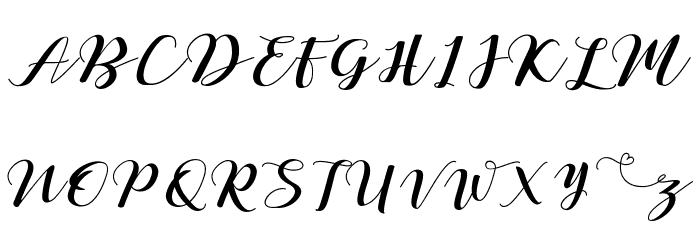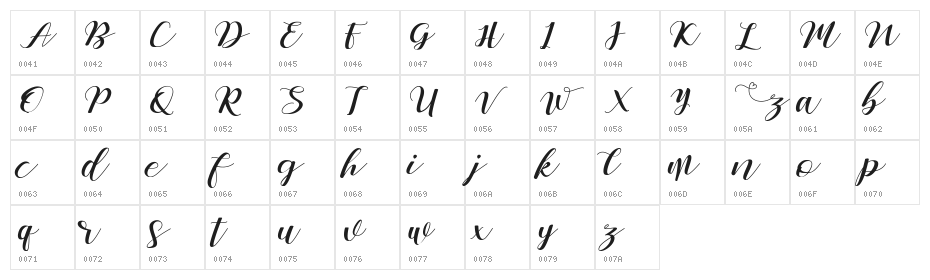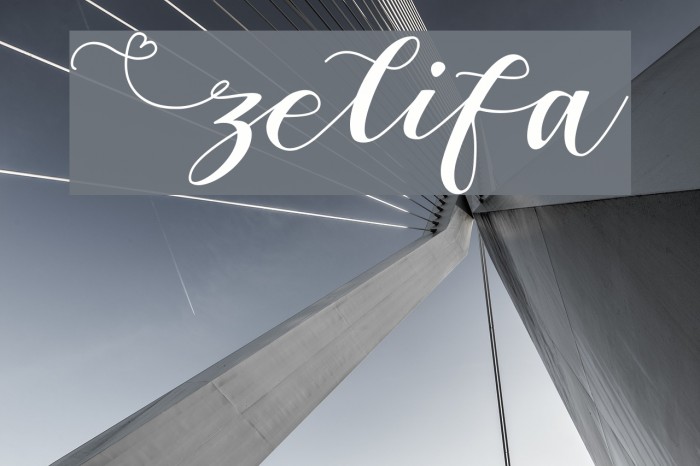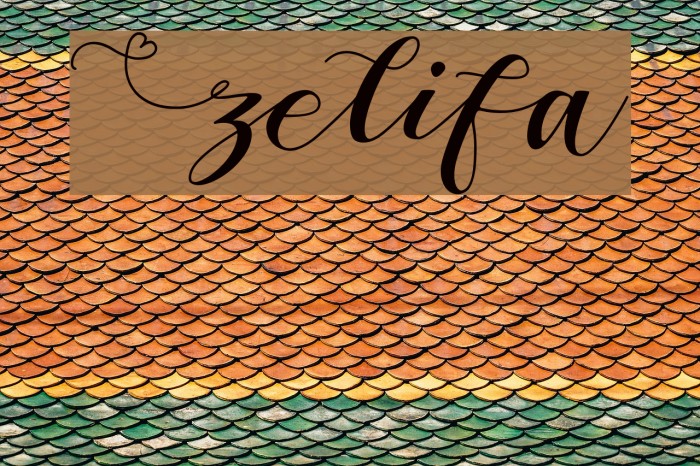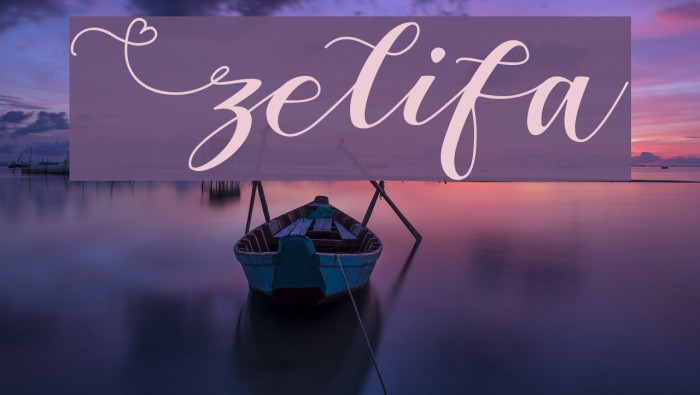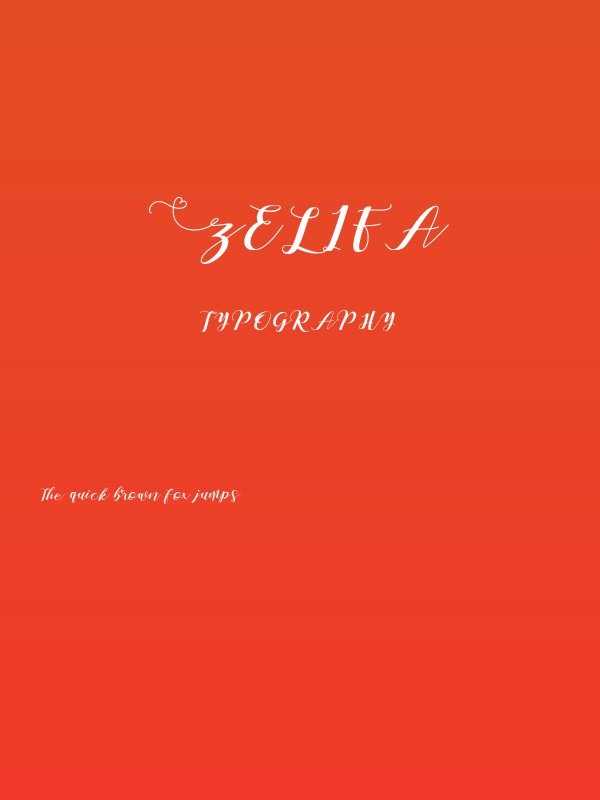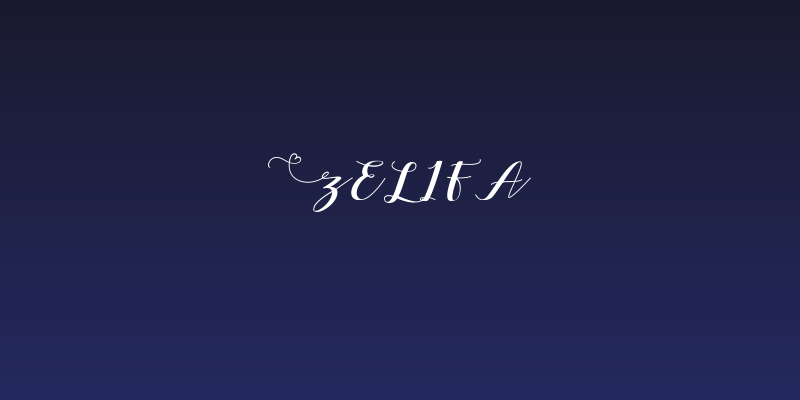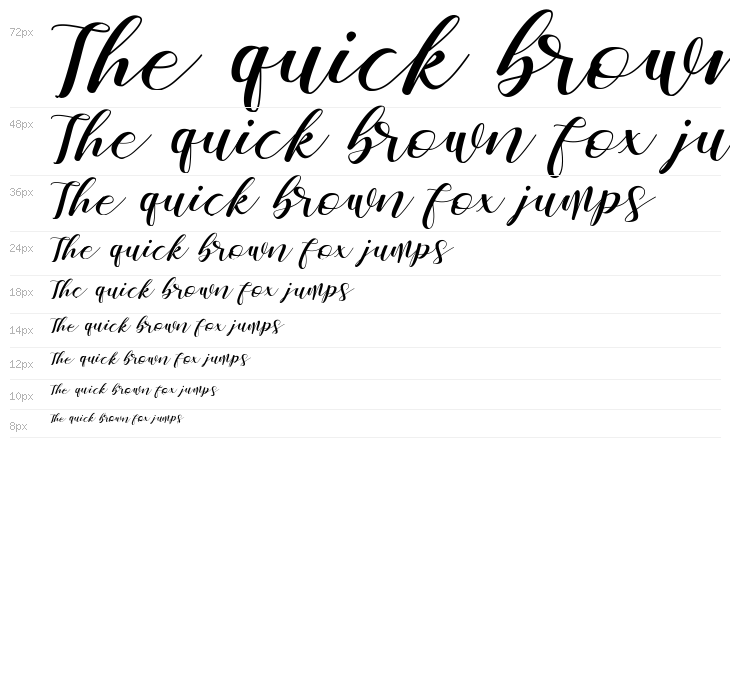
Zelifa Font
Zelifa Description
This font features an elegant and flowing script style, characterized by its smooth, cursive letterforms. The uppercase letters are particularly ornate, with sweeping curves and flourishes that add a touch of sophistication. The lowercase letters maintain a consistent flow, making them highly legible despite their decorative nature. The font's overall appearance is both graceful and dynamic, making it suitable for a variety of creative applications. The characters are well-spaced, ensuring readability while maintaining an artistic flair. This font is perfect for projects that require a touch of elegance and style.
Overall StyleElegant, Decorative
Use CaseHeadlines, Invitations, Branding
Proposed ProjectsIdeal for wedding invitations, greeting cards, branding, and elegant packaging designs.